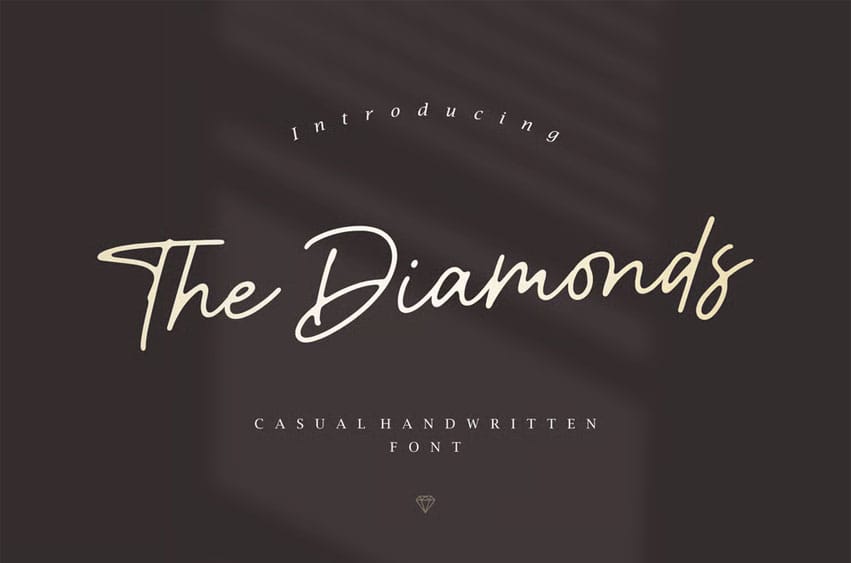
The Diamonds Font is a modern, casual handwritten font that combines elegance with effortless charm. Crafted with smooth strokes and graceful flow, this typeface captures the essence of sophistication while maintaining a relaxed handwritten feel. Perfect for luxury branding, wedding invitations, packaging, and lifestyle designs, The Diamonds adds a refined yet approachable tone to every project.
With its natural rhythm and balanced curves, this font works beautifully across both large and small text sizes — ideal for creating logotypes, social media posts, quotes, and website headers. Its minimalist aesthetic pairs well with serif or sans-serif fonts, allowing designers to build timeless compositions with ease.